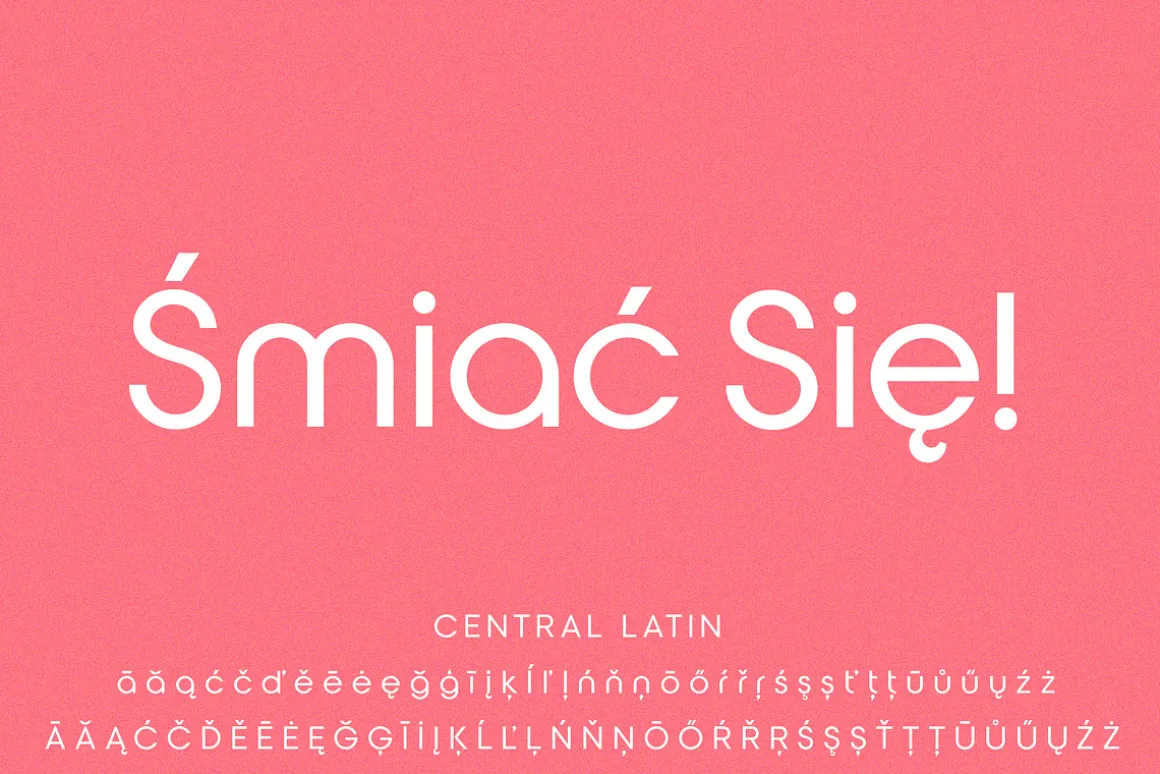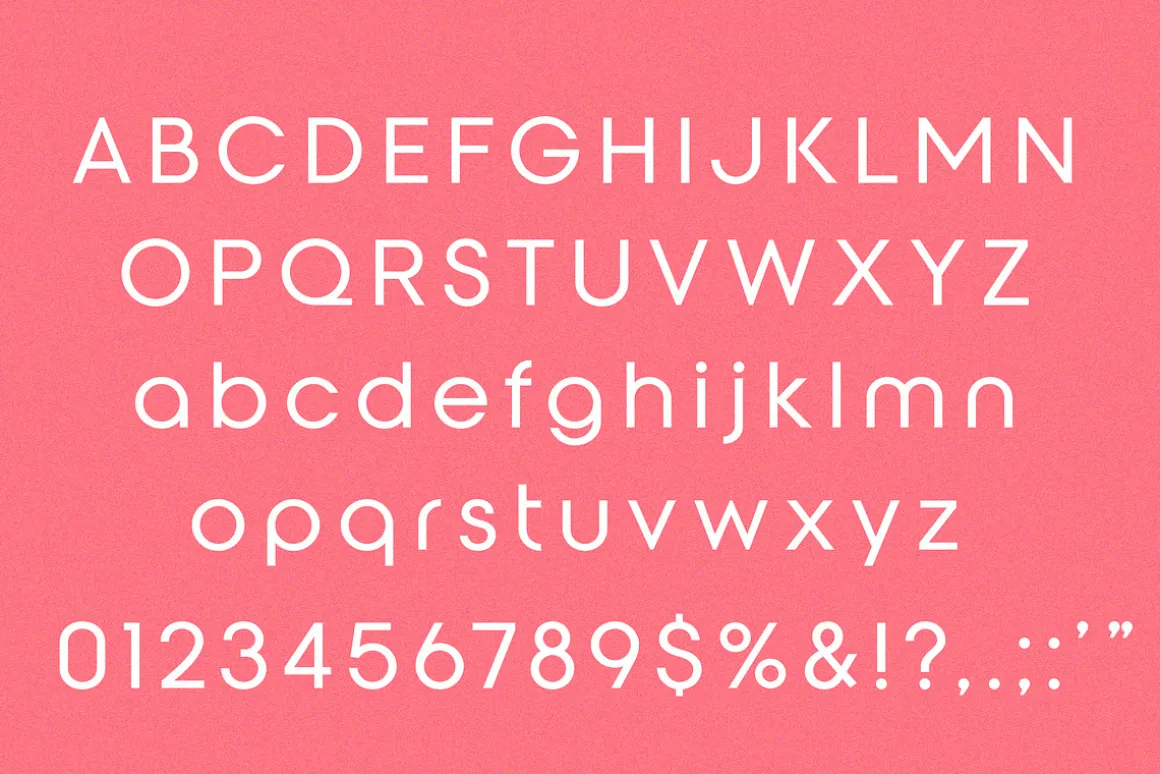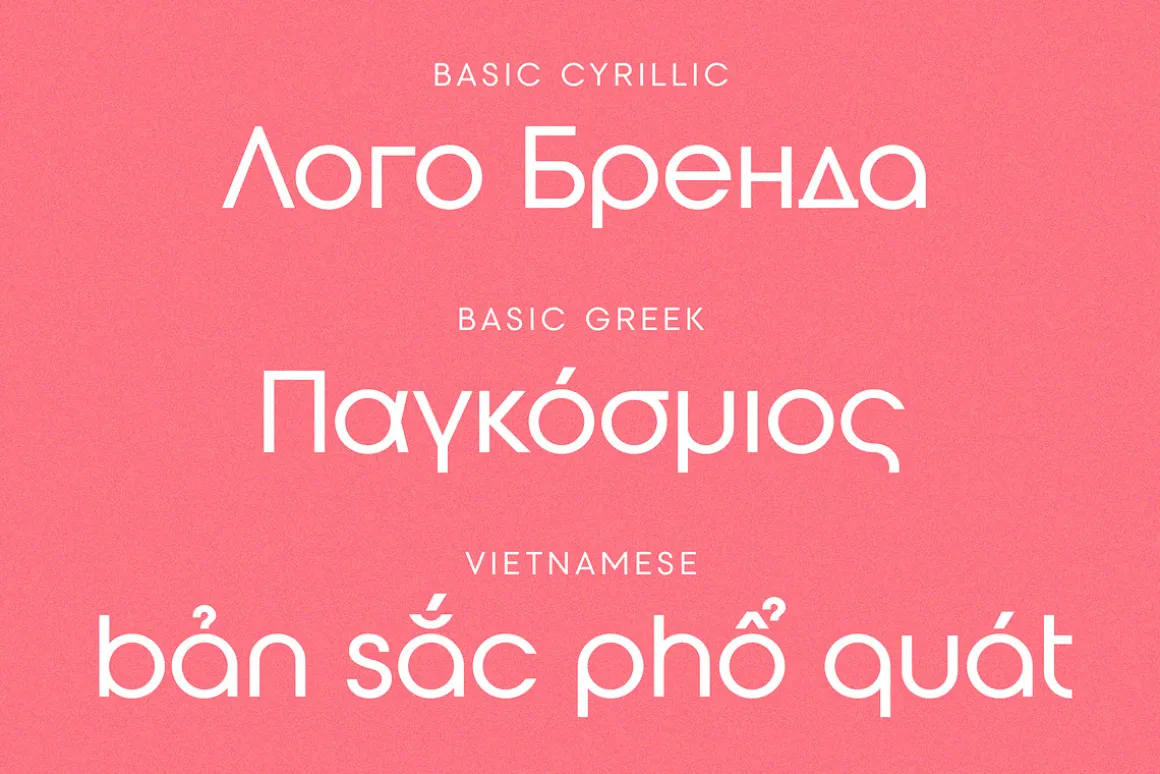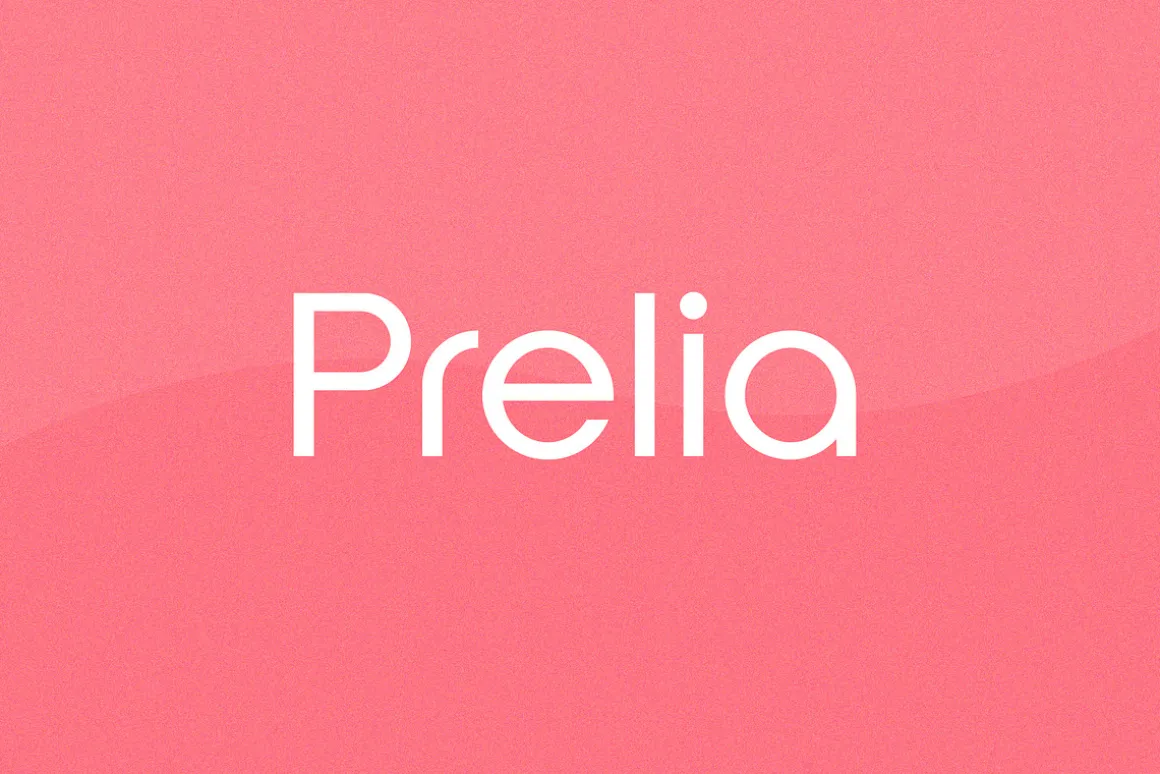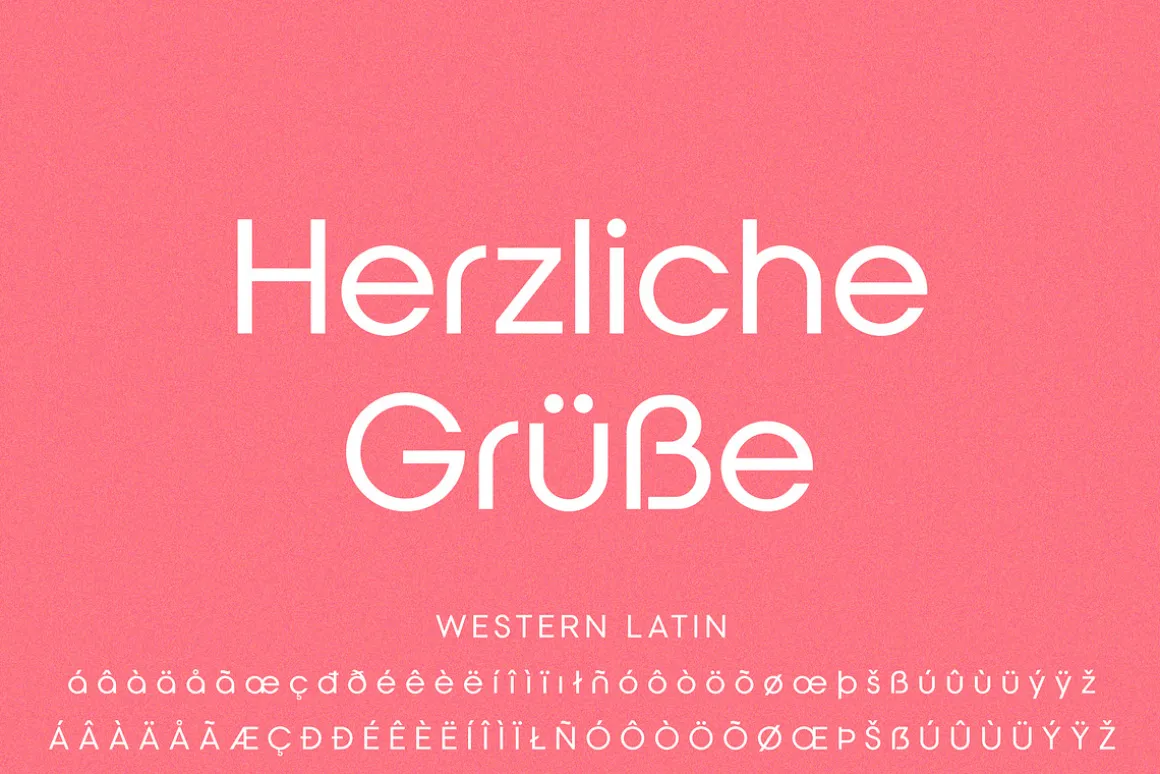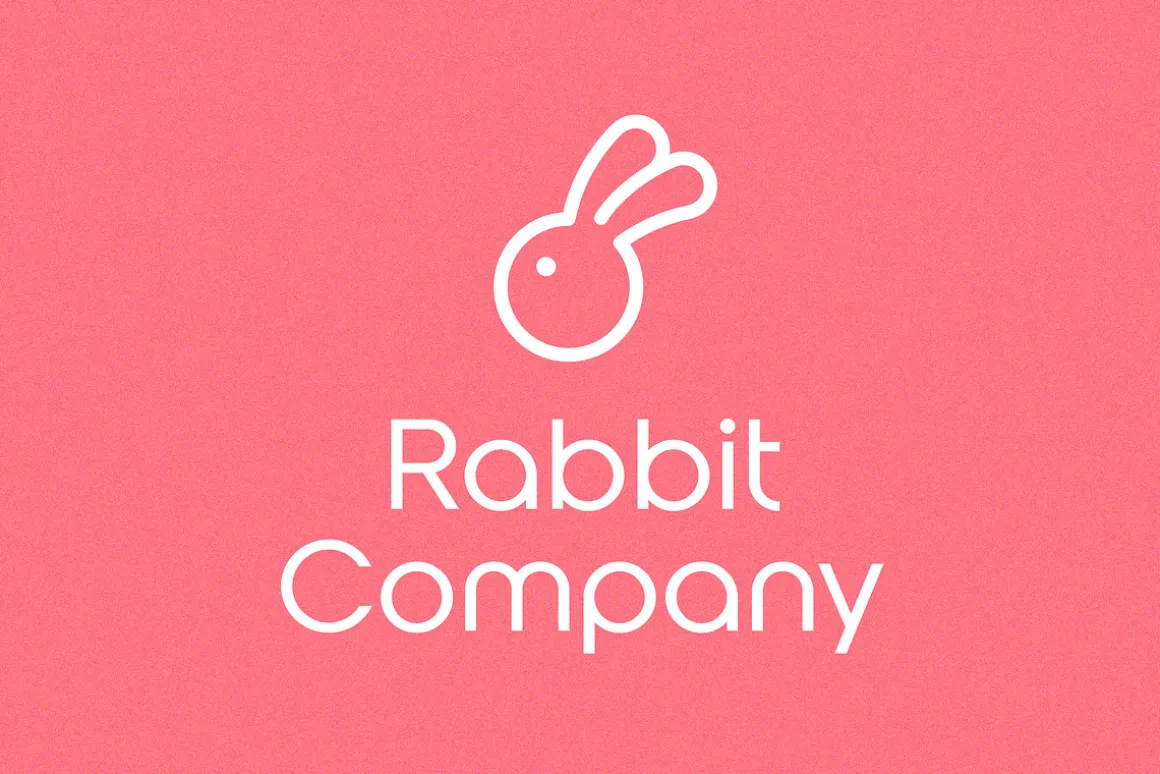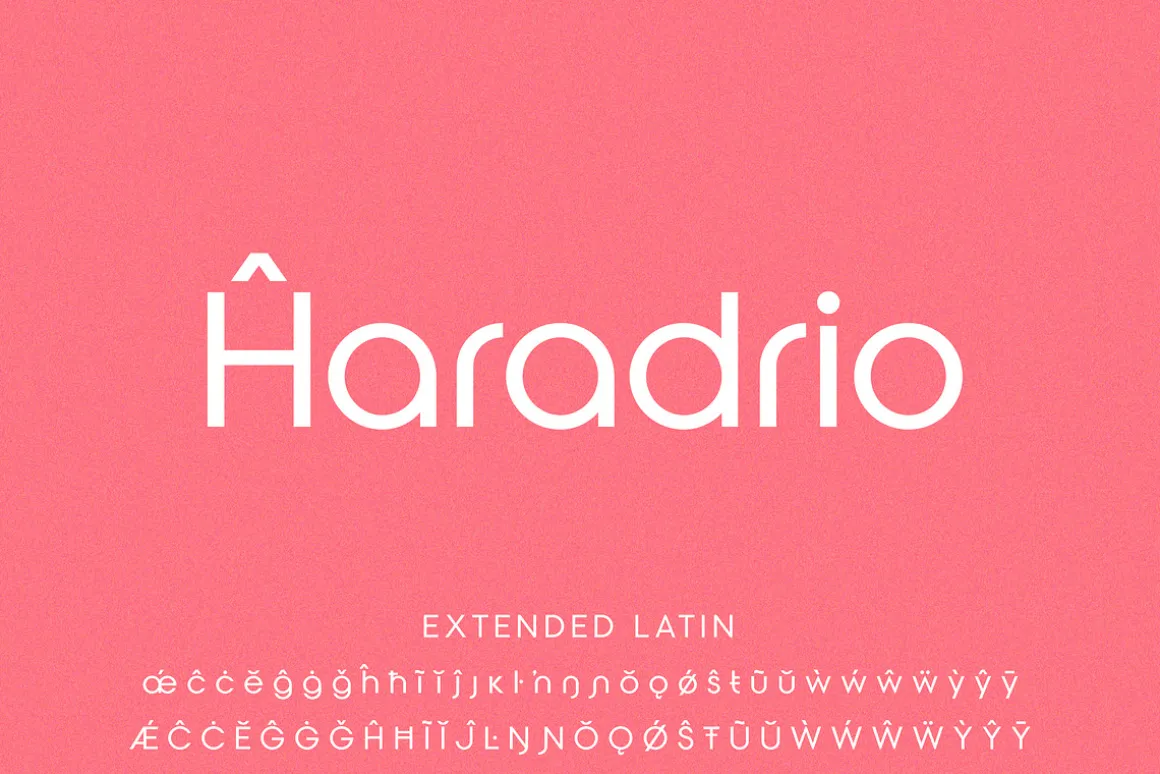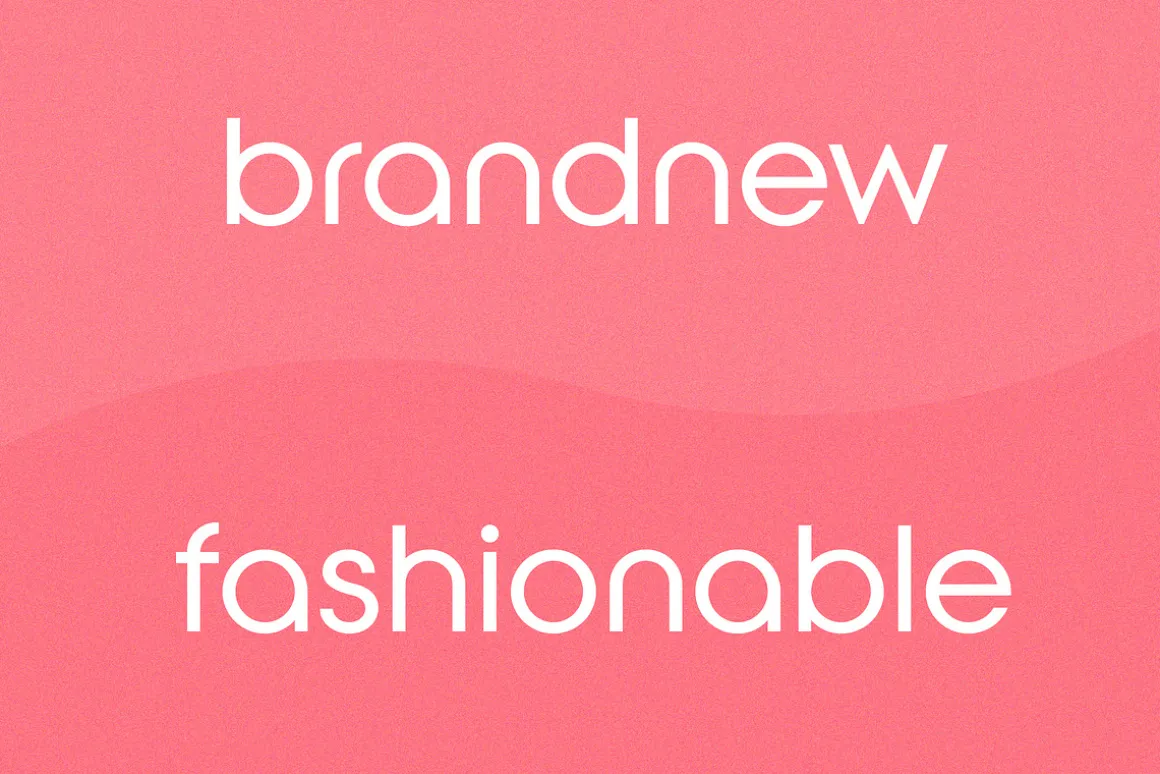
Prelia is a special font for your logo & branding.
Every character is designed for a good logo, so not suitable for a long text.
230+ Languages: Extensive Latin / Cyrillic / Greek / Vietnamese
Concept: Bright / Cool / Fragile / Smart / Urban